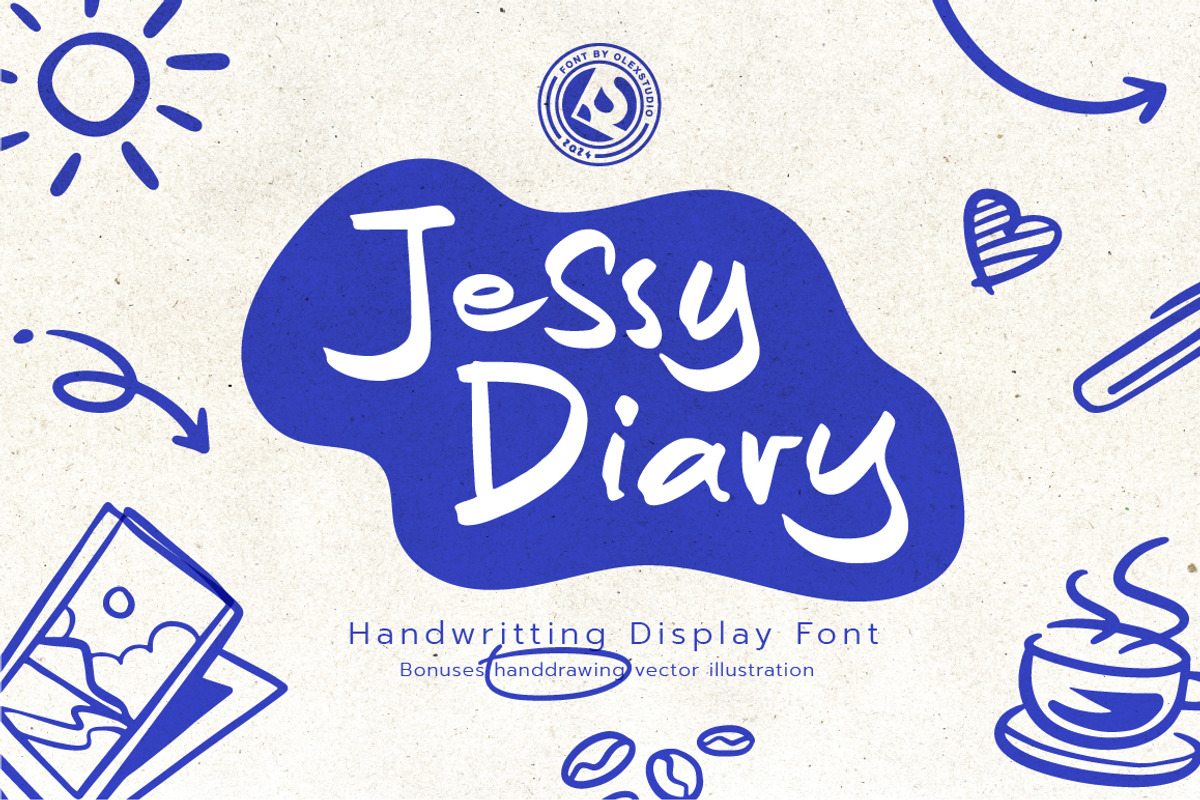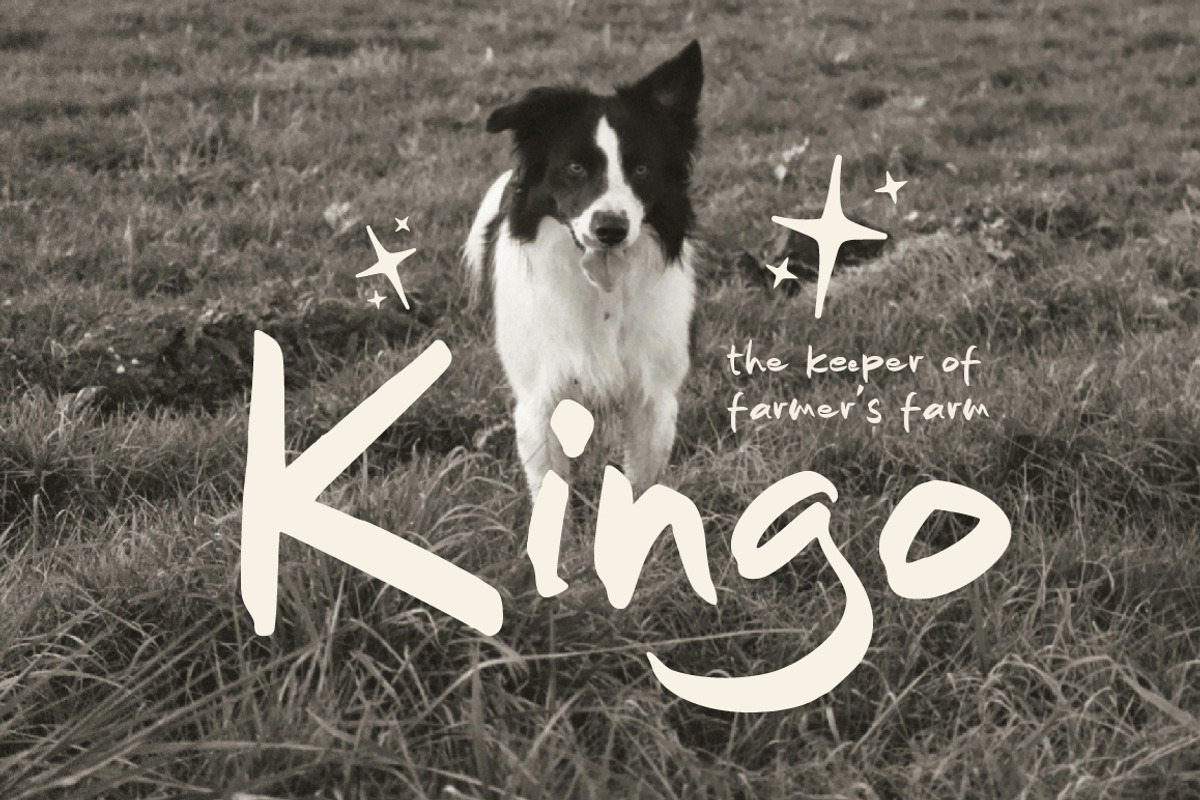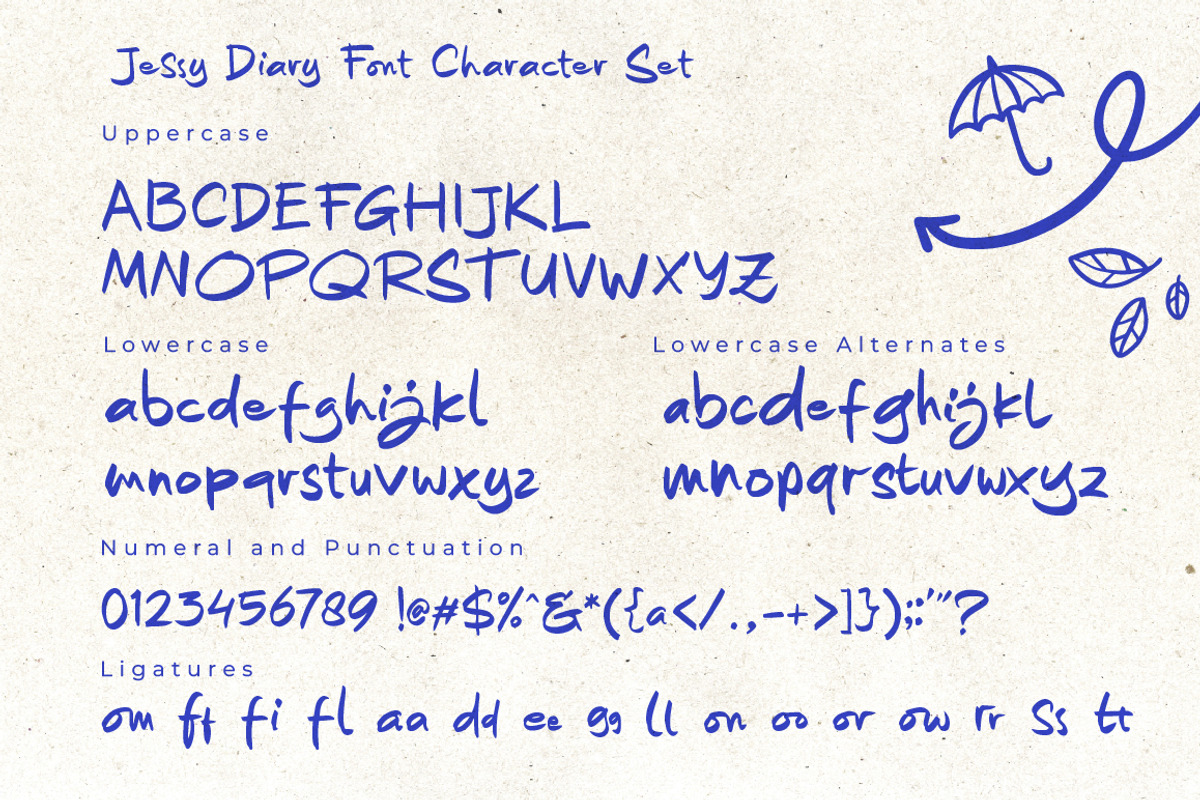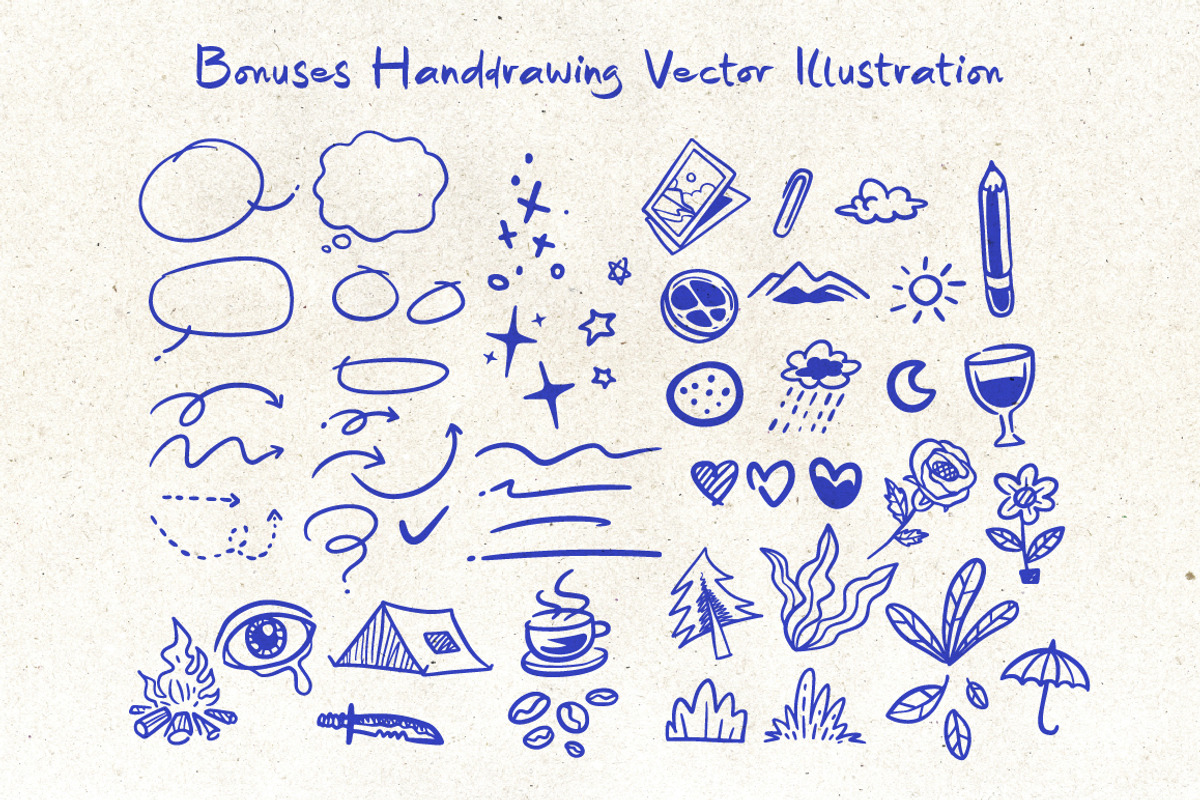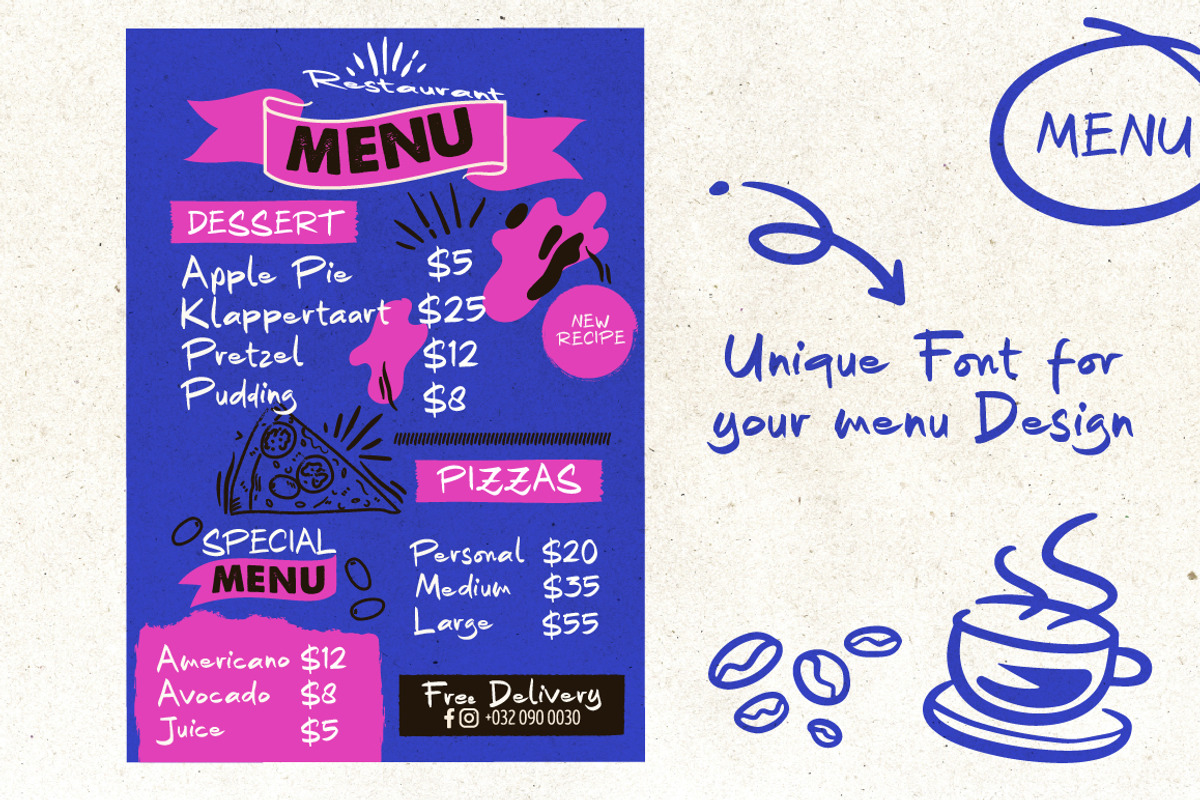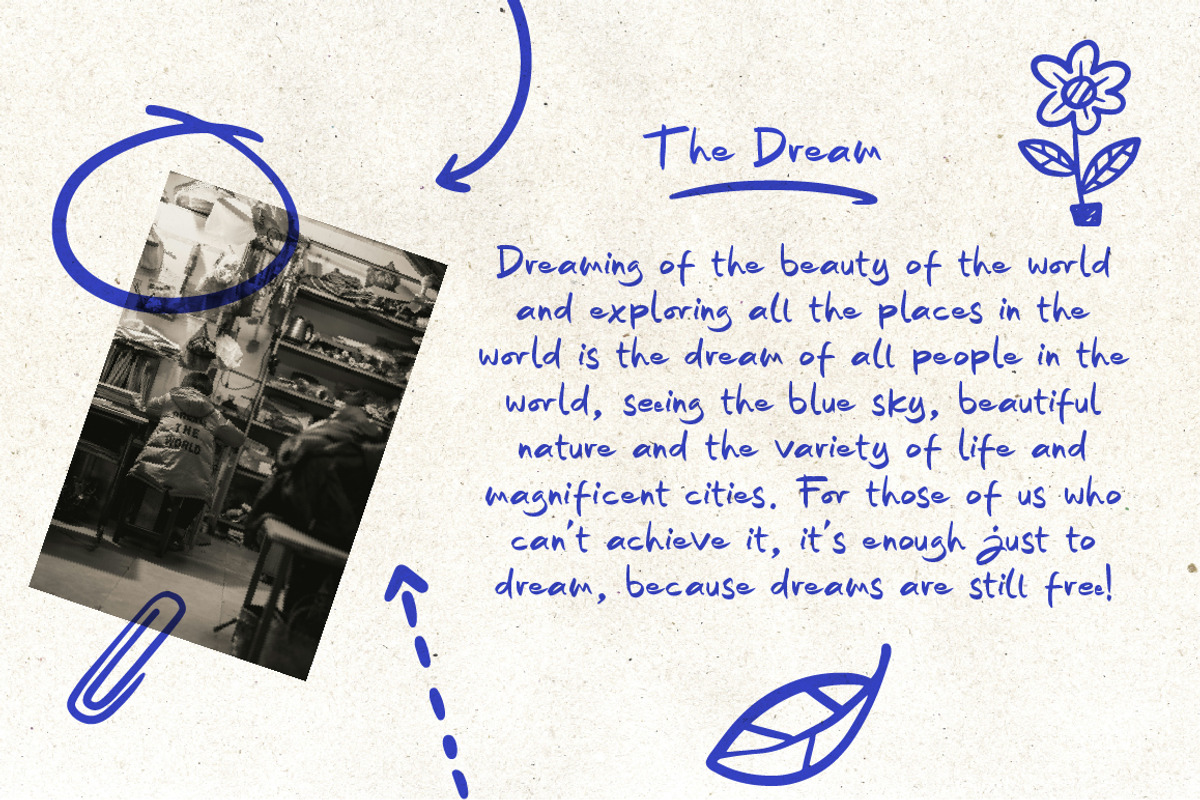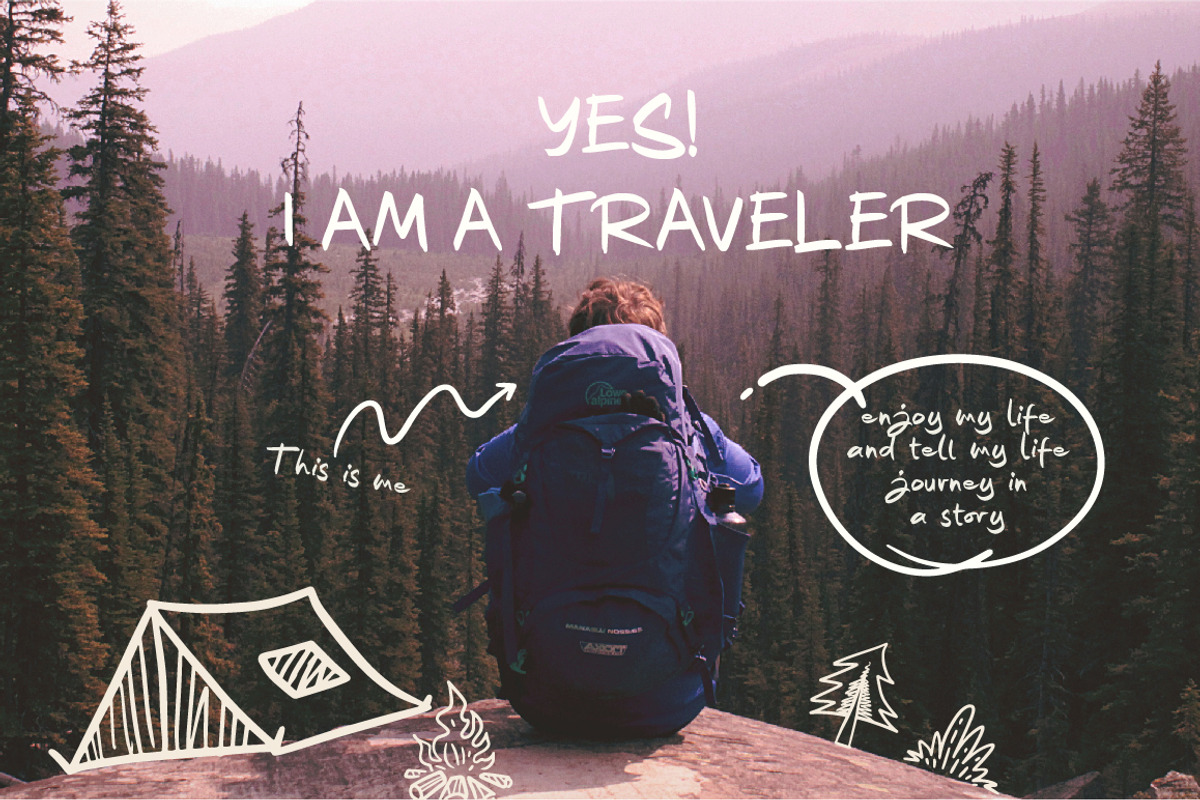
Jessy Diary - Handwritting
Jessy Diary - Handwritting Display Font will look gorgeous on all your designs, poster design, comic book, kids book, book design, branding materials, logo's, menu and all project design other.
Jessy Diary - Handwritting Display Font contains standard characters, Uppercase, Lowercase Alternates, Ligatures, numbers, punctuation and international glyphs. You will receive OTF, TTF files & WEBFONT and BONUSES HANDDRAWING VECTOR ILLUSTRATION (ai, eps, pdf).